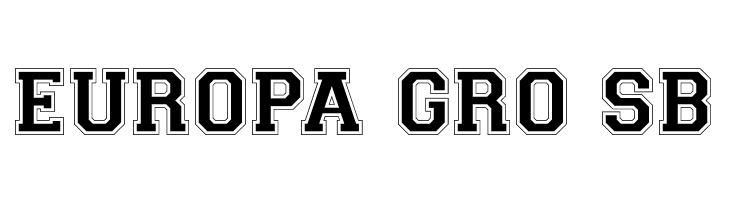
( Fonts by www.freakyfonts.de )
Cartoon and pixel art character font inspired by classic video games.
( Fonts by Dieter Schumacher )
Bold, geometric font with a collegiate style and strong, angular lines.
( Fonts by Astigmatic One Eye Typographic Institute - Brian J. Bonislawsky - astigmatic.com )
A spooky, hand-drawn font with jagged edges, perfect for eerie themes.
( Fonts by Tony O`Farrell )
A spooky, dripping font ideal for horror themes.
( Fonts by Neale Davidson - www.pixelsagas.com )
A bold, playful font with cartoonish elements and unique character designs.
( Fonts by www.empire-of-the-claw.com )
A bold, horror-themed font with dripping, jagged letters.
A bold, italic collegiate font with solid, angular letterforms.
Bold, italicized font with a collegiate, athletic style.
Bold, blocky collegiate-style font with a strong geometric structure.
( Fonts by www.empire-of-the-claw.com )
A horror-themed font with jagged, distressed characters for a chaotic look.
( Fonts by www.empire-of-the-claw.com )
A dripping, horror-themed font with a melting appearance.
( Fonts by Matthew Welch - www.squaregear.net/fonts/ )
A bold, geometric font with a collegiate, sports-inspired style.
( Fonts by Matthew Welch - www.squaregear.net/fonts/ )
A bold, collegiate-style font with strong, block-like characters.
( Fonts by Boba Fonts )
A bold, futuristic font with sharp angles and a sci-fi aesthetic.
( Fonts by Jeri Ingalls - littlehouse.homestead.com )
A playful, bold font with rounded, chubby characters ideal for fun and engaging designs.
( Fonts by Andrew Hart - dirt2.com )
A bold, adventurous font inspired by African wildlife and culture.